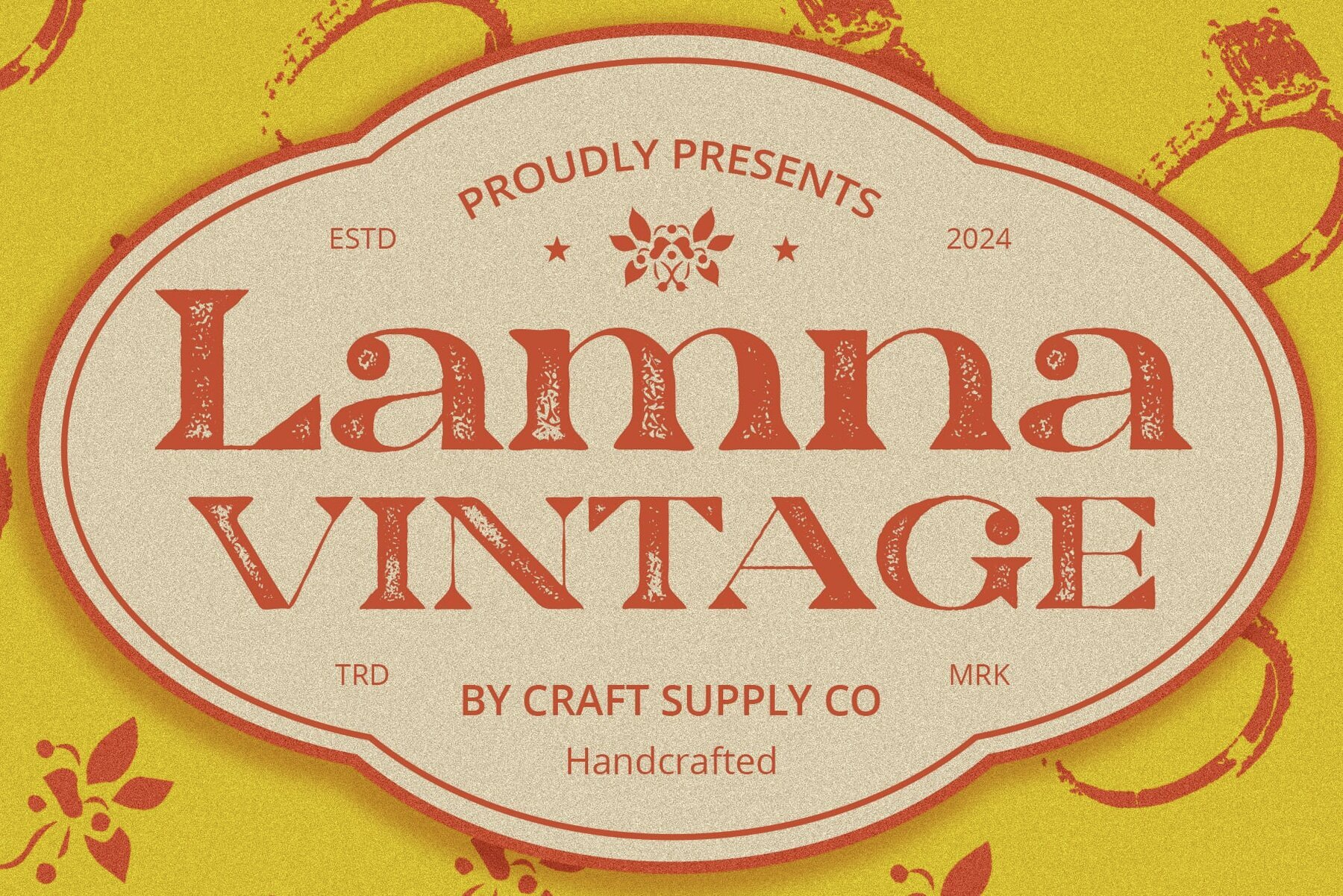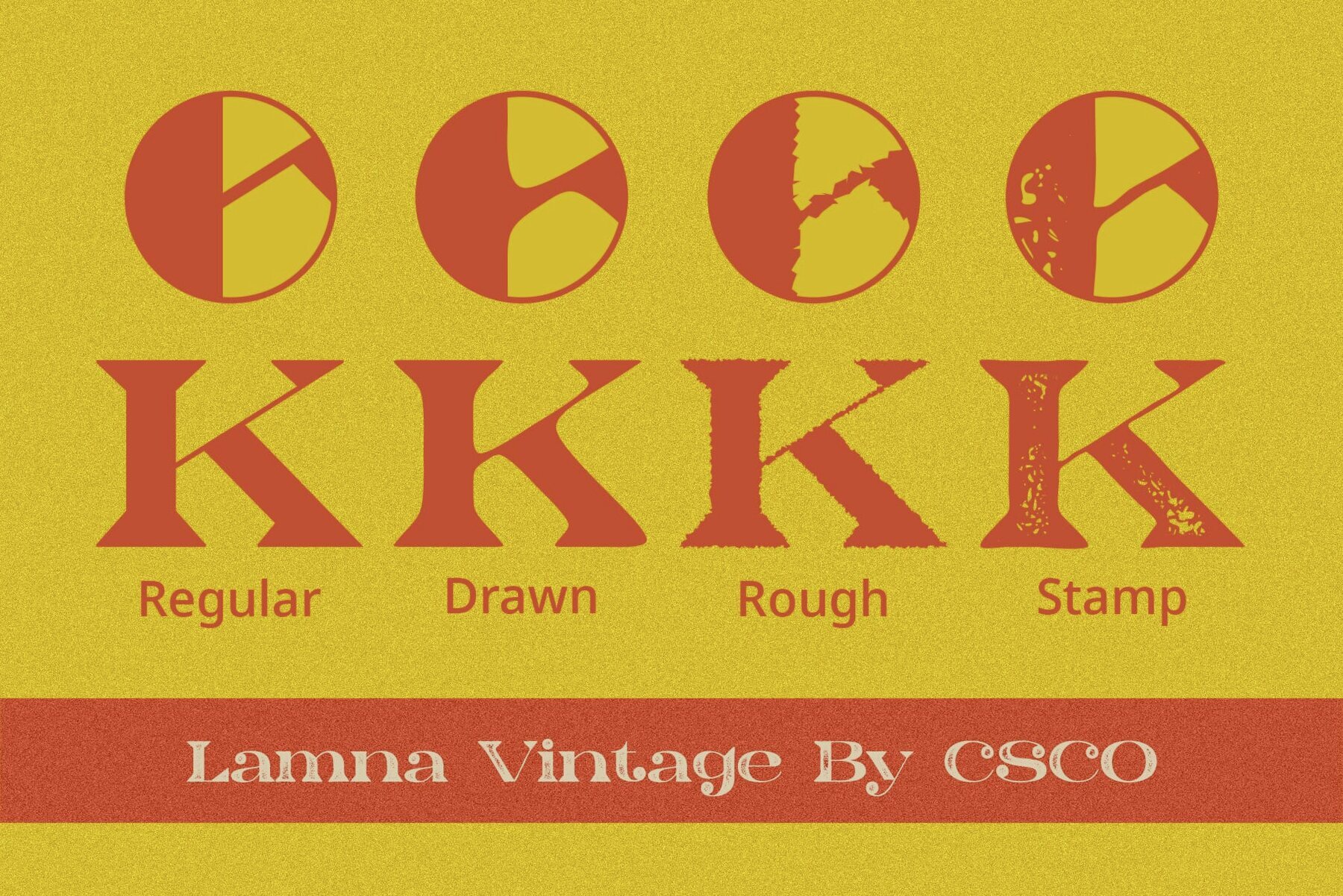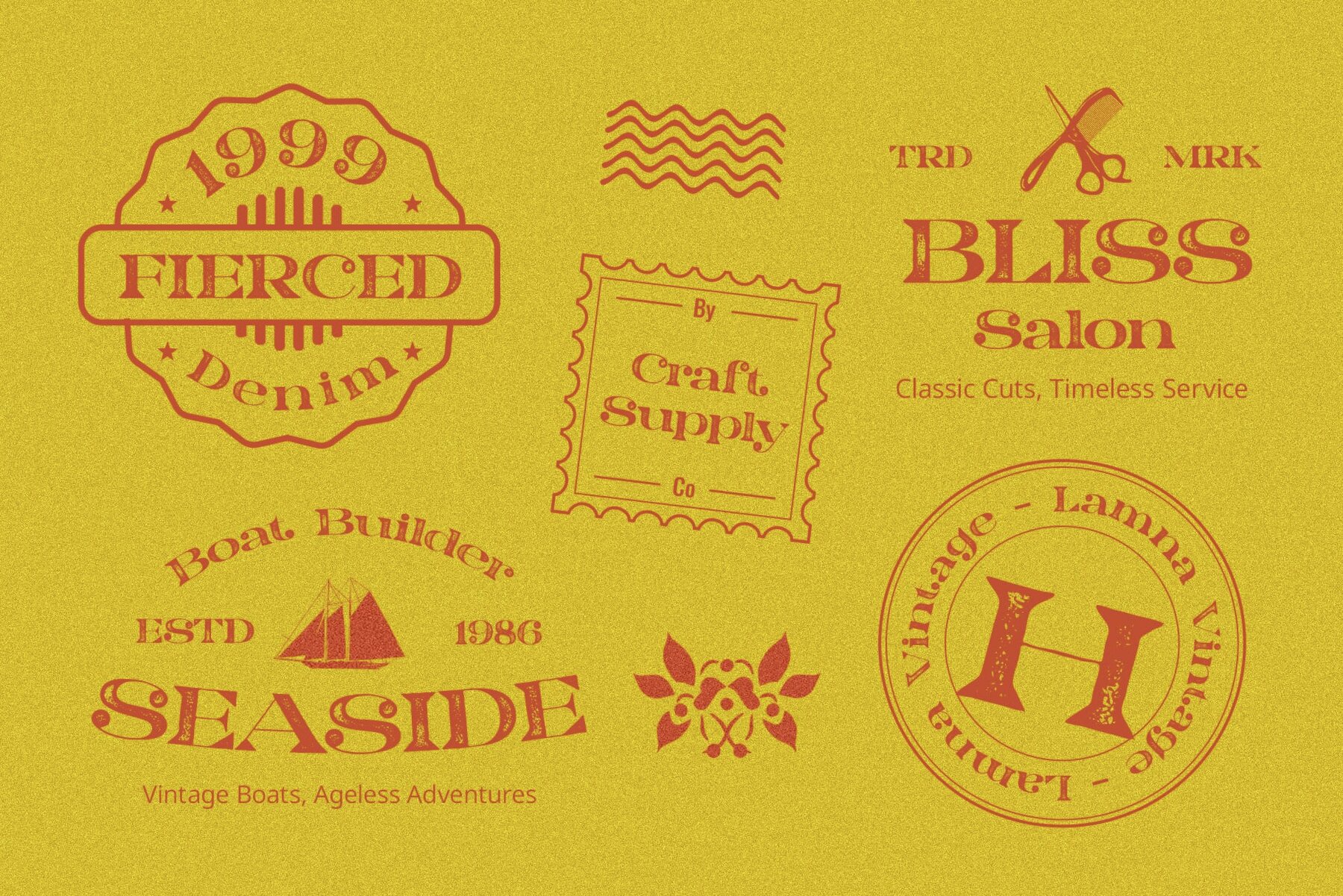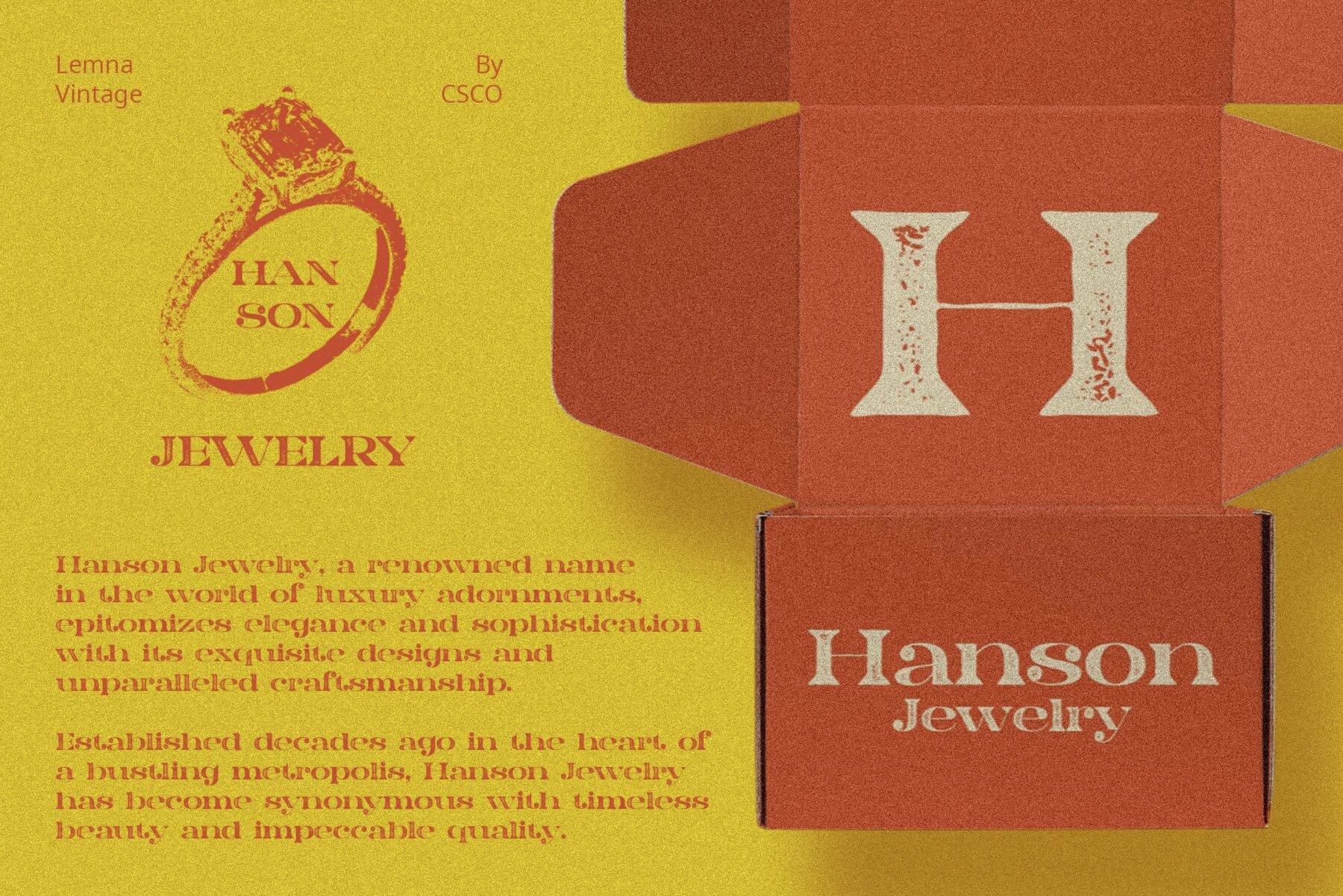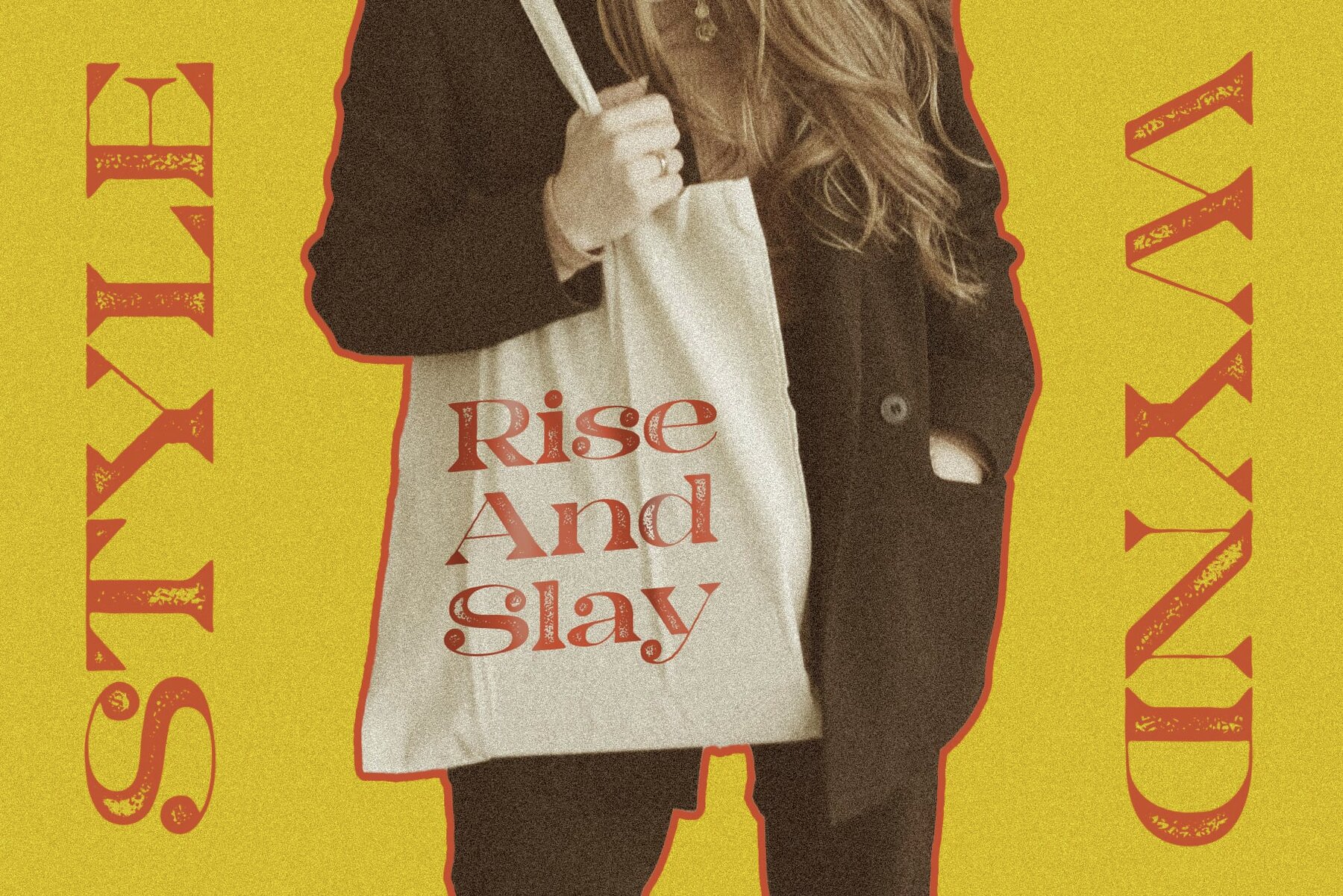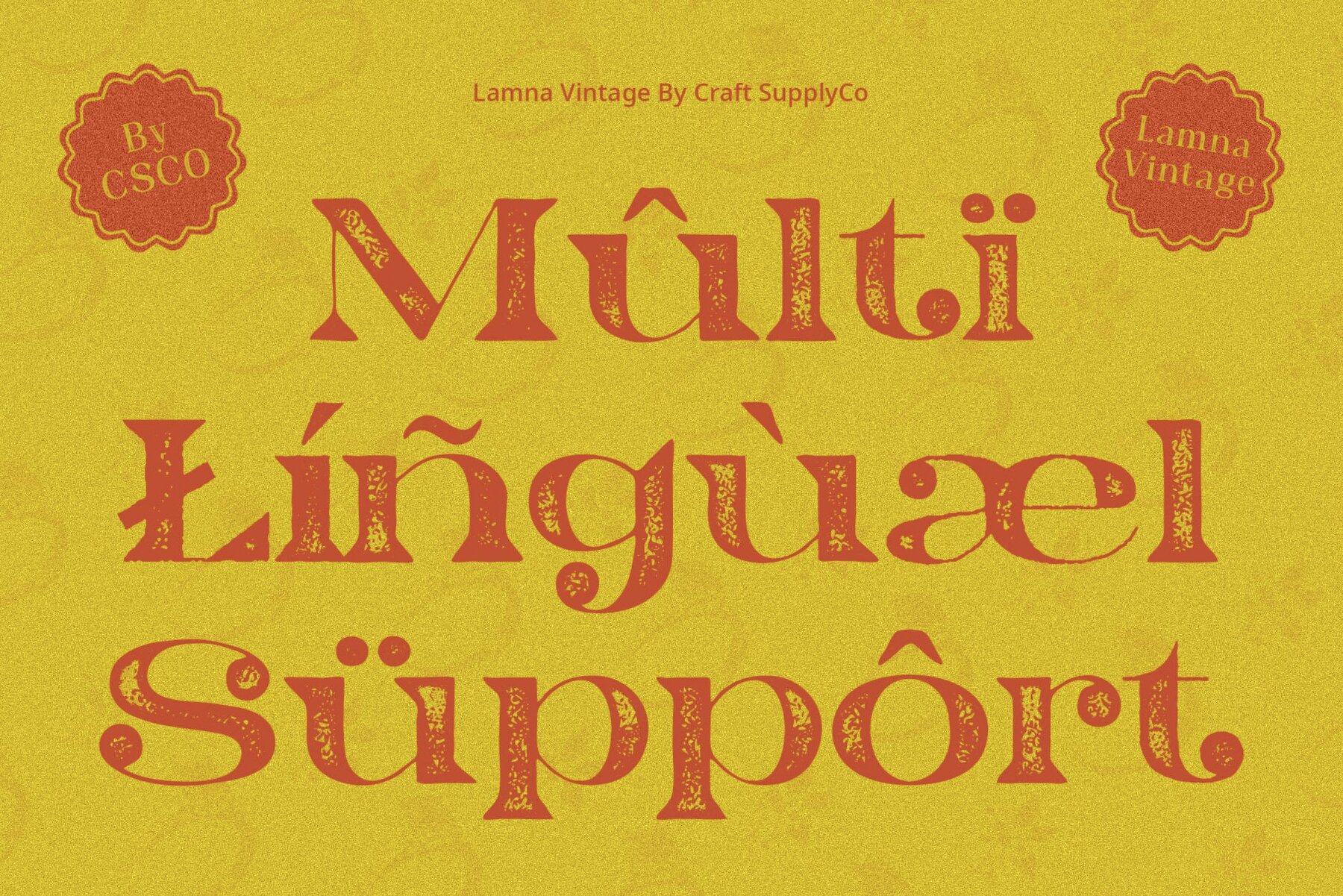
Lamna Vintage Font
This font is a transitional serif typeface characterized by its bold weight and high contrast between thick and thin strokes, giving it a sophisticated and dramatic presence. Its sharp serifs and clean lines lend a contemporary feel, making it suitable for high-impact editorial and branding purposes. While it commands attention in display sizes, its refined features ensure legibility and elegance in text applications.